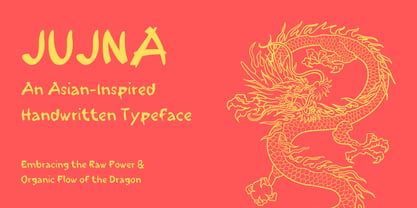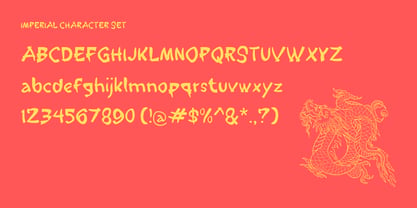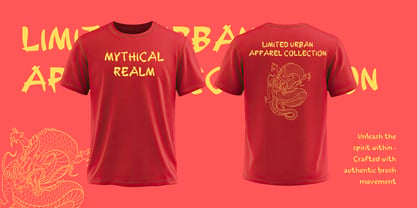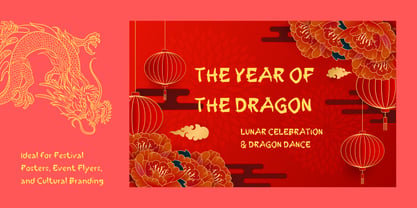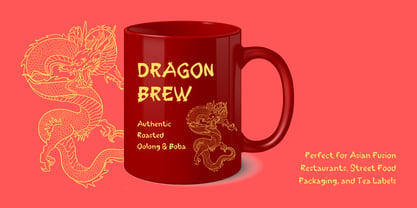
Jujna
Bring raw authenticity, oriental flair, and a charming human touch to your visual projects with Jujna. Inspired by the expressive rhythm of East Asian brush calligraphy, Jujna is a handwritten display font that deliberately embraces imperfection and natural flow over rigid geometric precision.
Design Concept & The "Happy Accident" Story
The concept behind Jujna was to create a script that balances oriental-inspired brush strokes with the relaxed, organic feel of everyday handwriting. During the early design drafts, the font was originally working under the title "Susha." A unintentional typo during the saving process transformed it into "Jujna"—a happy accident that was kept to give the typeface its own unique origin story, character, and a little touch of creative good luck!
Ideal Design Uses
With its distinct Asian-inspired handwritten aesthetic, Jujna stands out across various creative applications:
- Branding & Food Packaging: Ideal for Asian fusion restaurants, ramen shops, boba tea brands, street food packaging, and artisanal tea labels.
- Apparel & Streetwear: Perfect for oriental-themed graphic tees, hoodies, tote bags, and urban lifestyle merchandise.
- Posters & Editorial: Great for cultural event flyers, martial arts zines, book covers, and movie titles requiring an organic Asian feel.
- Social Media & Digital Graphics: Eye-catching for YouTube thumbnails, Instagram quotes, and expressive promotional banners.
Key Features & Pairing Suggestions
- Organic Asian Brush Aesthetic: Combines traditional calligraphic energy with the casual, imperfect warmth of real handwriting.
- Extended Multilingual Support: Fully equipped with accented characters and extended Latin glyphs for seamless global design projects.
- Complete Character Set: Includes uppercase and lowercase letters, numerals, standard punctuation, and essential symbols.
- Effortless Font Pairing: Pairs beautifully with clean, modern Sans-Serif fonts (like Montserrat or Helvetica) for body text, letting Jujna take center stage as a high-impact headline font.
Embrace the beauty of happy accidents and give your designs a fortunate, authentic edge with Jujna!